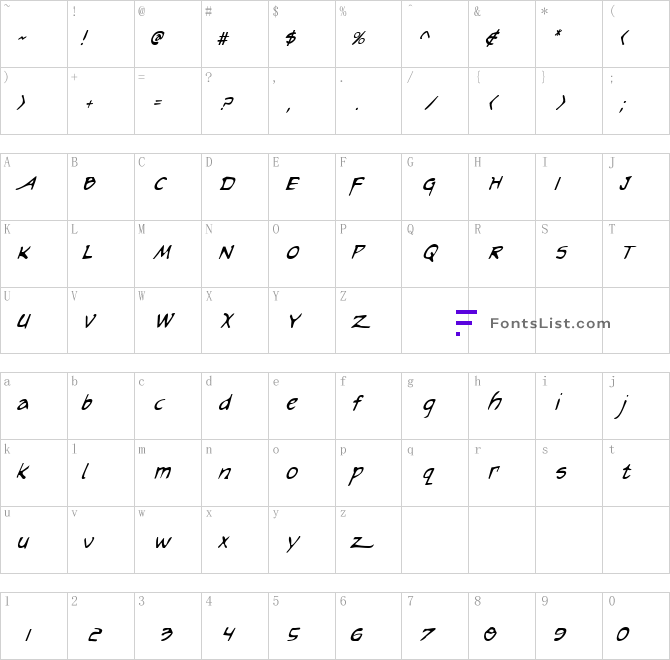
- Font Name:Arilon Condensed Italic
- Subfamily:Condensed Italic
- Subfamily:Arilon Condensed Italic: 2008
- Full Name:Arilon Condensed Italic
Arilon-Condensed-Italic.ttf is a very beautiful artistic font, Arilon-Condensed-Italic.ttf is widely used in the design and printing of various books and pictures,Arilon-Condensed-Italic.ttf has a strong visual impact,Arilon-Condensed-Italic.ttf is a commonly used font in newspapers, magazines and books, and is used in posters, e-commerce Poster design, store design, logo design, font design and other fields.Arilon-Condensed-Italic.